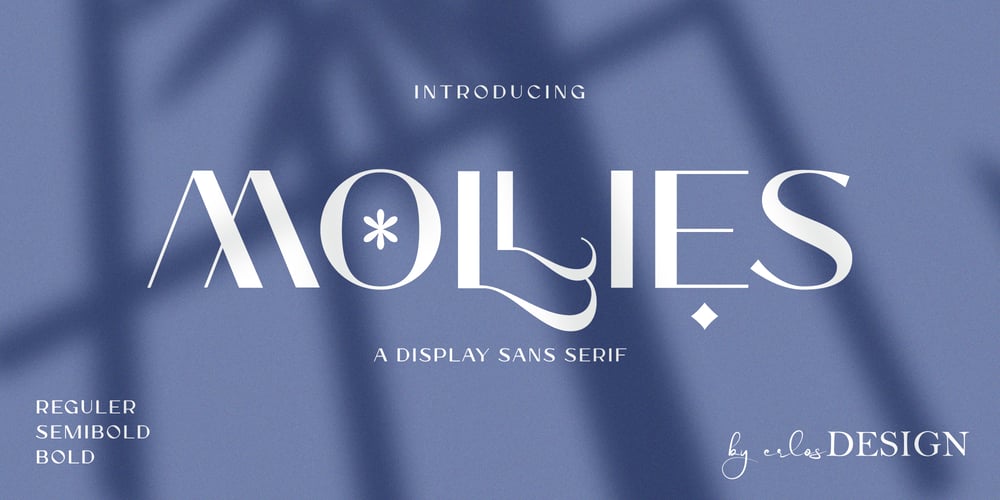
Mollies Font Family was designed by Erlangga Suherman and published by ErlosDesign. Mollies contains 3 styles and family package options. Mollies is an elegant and luxurious sans serif font. Trendy and stylish, this font will elevate each of your creations. Mollies is PUA encoded which means you can access all of the glyphs and swashes with ease! The file you will get is:• Works on PC & Mac• Simple installation• Can be accessed in Adobe Illustrator, Adobe Photoshop, Adobe InDesign, and even works in Microsoft Word.• Encoded PUA Character – Can be accessed completely without additional design software.Enjoy!